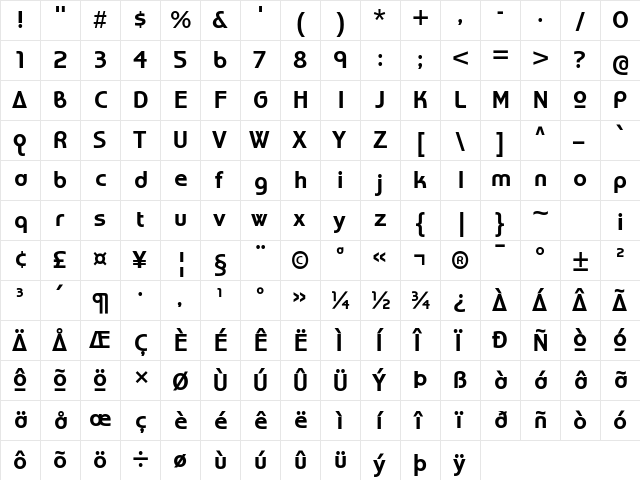
World of Water Regular
Design Context for World of Water Typeface
World of Water takes a measured approach to typography — its balanced proportions and neutral character make it a reliable workhorse for both digital and print work.